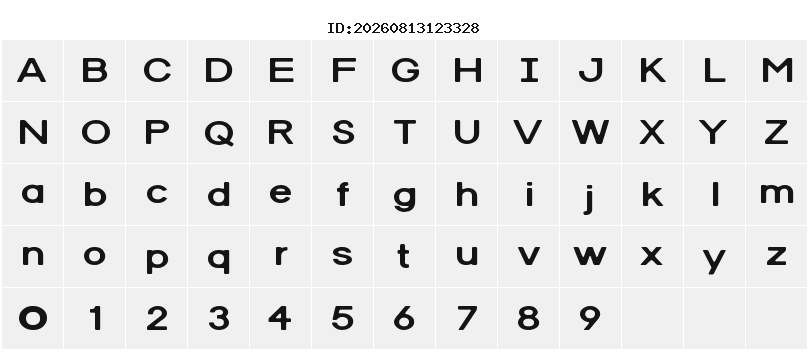
• Font Name: Red Rabbit
• Designer: junkohanhero
About Red Rabbit.ttf
Red Rabbit.ttf is a modern, elegant sans-serif font designed for ultimate readability and visual harmony. Perfect for branding, headlines, web design, and print materials.